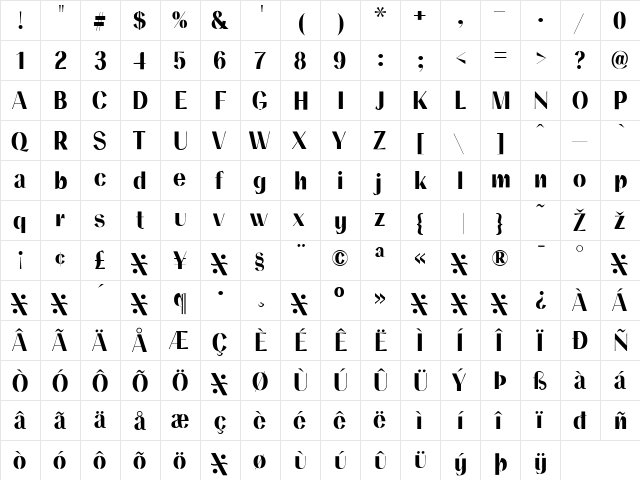
NumskillBold Regular
Design Context for NumskillBold Typeface
NumskillBold is a composed and adaptable typeface that performs quietly and consistently across a wide range of design contexts. The heavy weight commands attention and anchors typographic hierarchies.